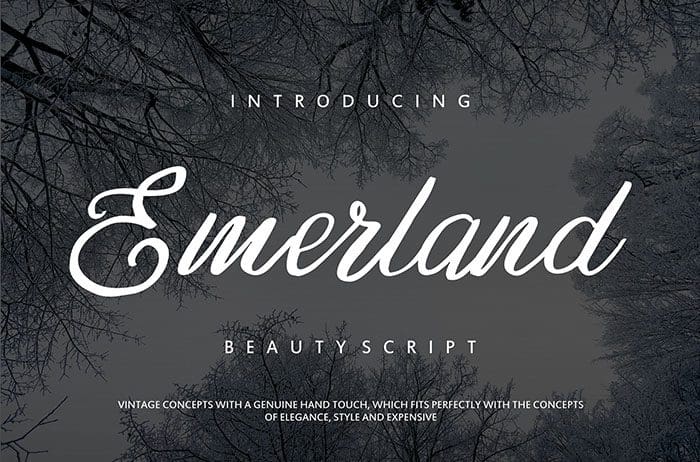
Emerland Script Font
Emerland is a strikingly elegant script font with a unique feel. It will add a level of authenticity to any design project. Thanks to Vunira Studio for sharing this font! Take a look at this portfolio for more of his stunning fonts.